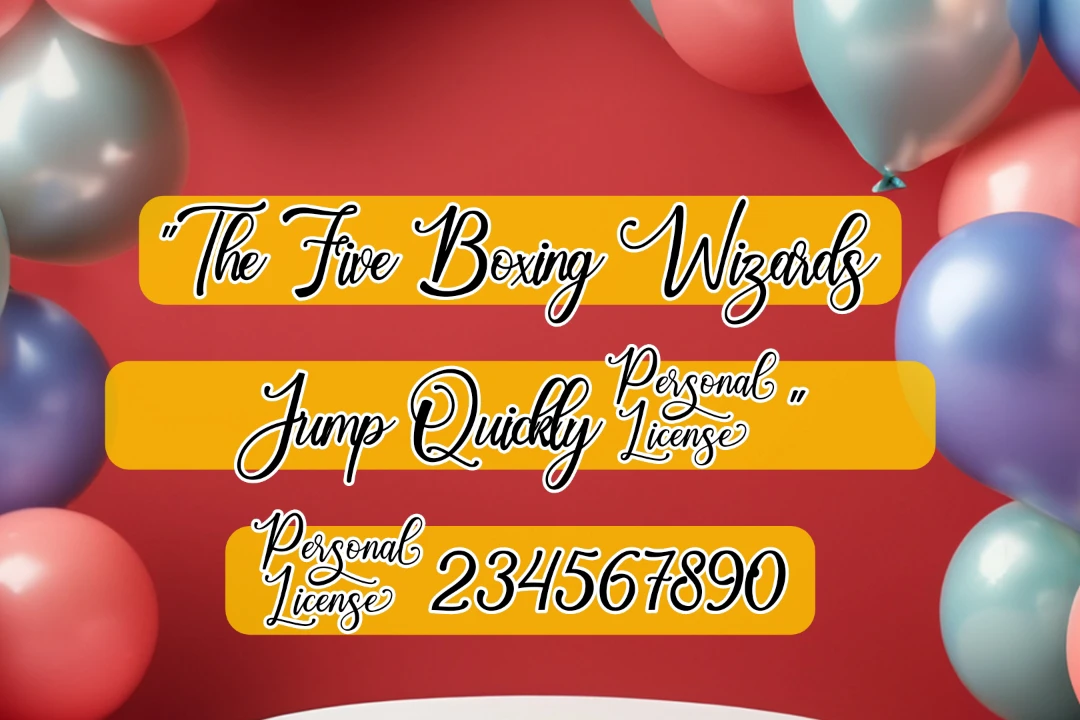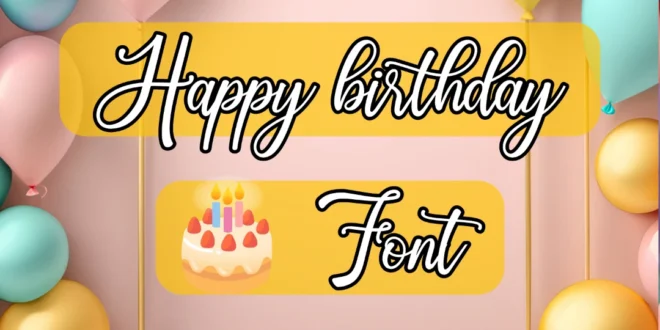
The Happy Birthday Font is a popular, cheerful font style often used for festive occasions, particularly birthday-themed designs.
Known for its playful and celebratory style, this font type is ideal for event invitations, birthday banners, and party decorations.
Many variations are available, created by different designers, and these fonts typically fall under categories like hand-drawn, and script fonts.
Each variation has unique features, such as bold or rounded edges, decorative ligatures, and customizable glyphs, making them well-suited for different celebratory contexts.
It works perfectly for projects that need a warm, celebratory tone. It’s especially popular in designing greeting cards, party invitations, and social media graphics for birthdays.
Many designers also use these fonts for other children’s events or products, as the fonts’ styles often align well with youthful and whimsical themes.
The designer and style specifics can vary, as many versions exist with slight adaptations by various creators. For example, some popular variants, like “Cupcake Party” by Misti’s Fonts, feature a whimsical, hand-drawn look, while others.
| Name | Happy Birthday Font |
| Designer | Java Pep |
| Category | Script |
What is the best way to pair Happy Birthday Fonts?
They pair well with simple, clean fonts that balance the design, ensuring the festive font remains the focal point.